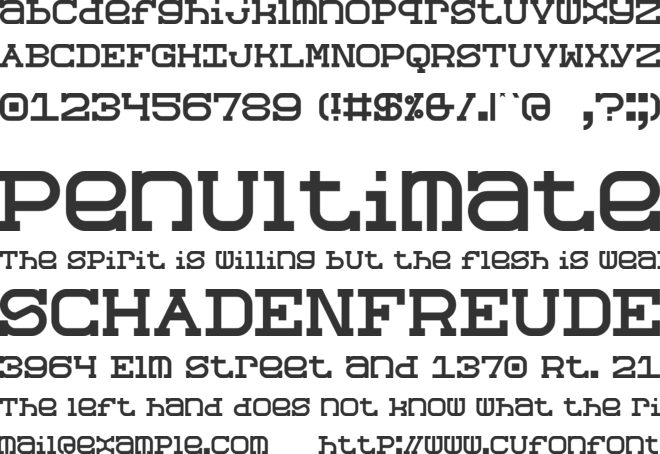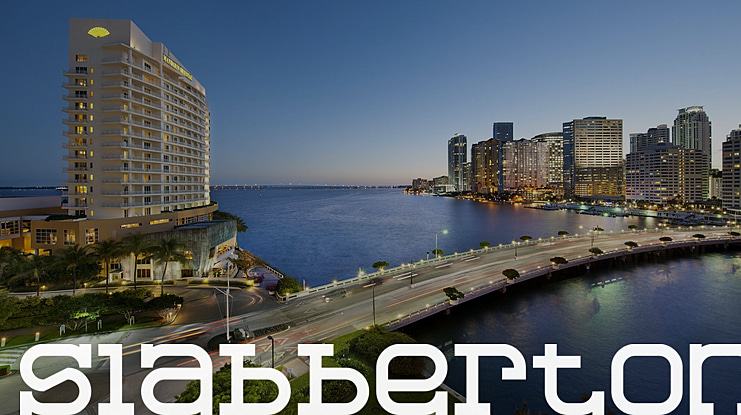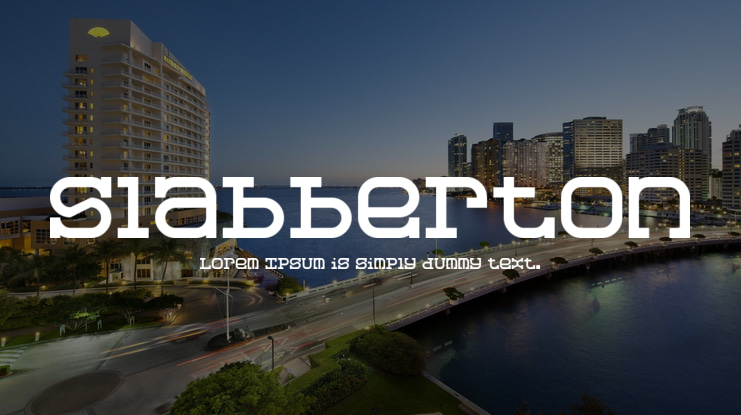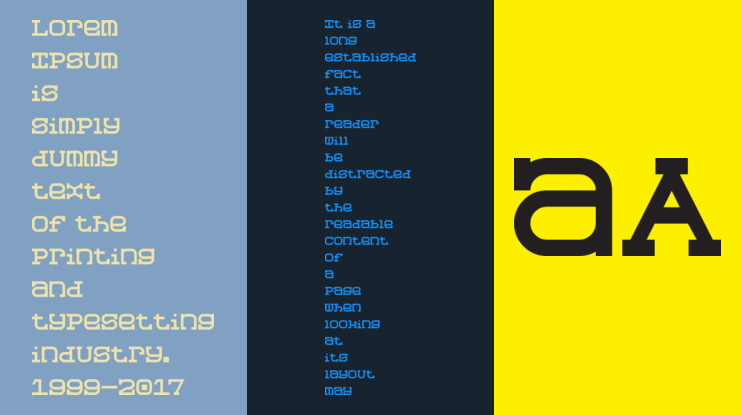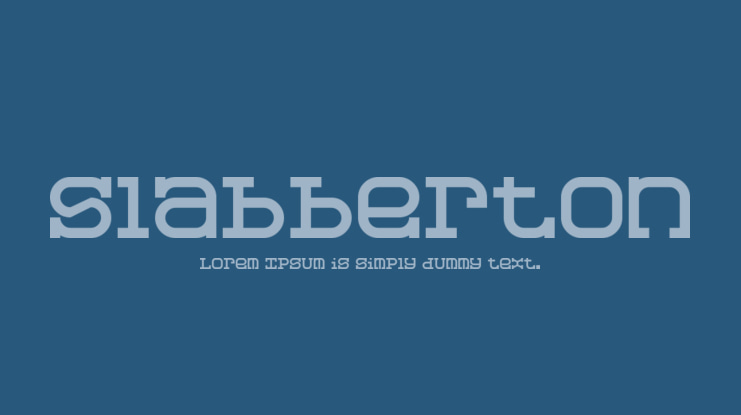
Slabberton Font
A slab serif design I created for "Wallerton, Anachronistic Gunslinger", a bad TV show I used to write and produce. This design is referred to as "the cowboy typewriter aesthetic".